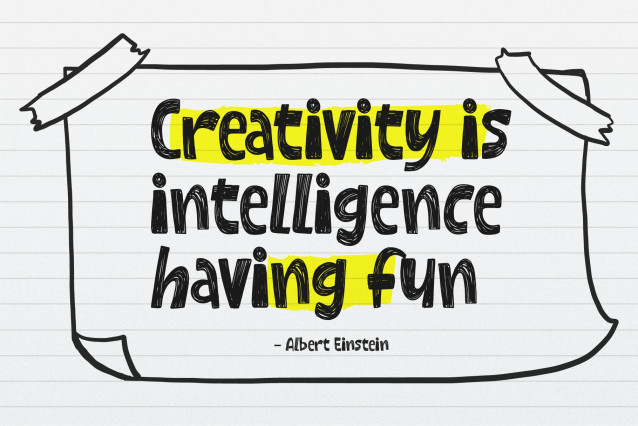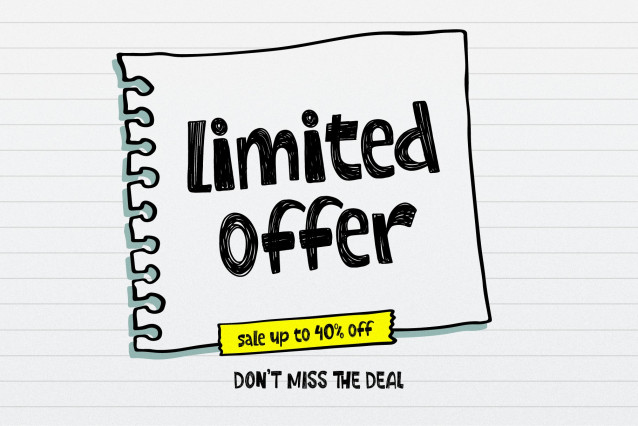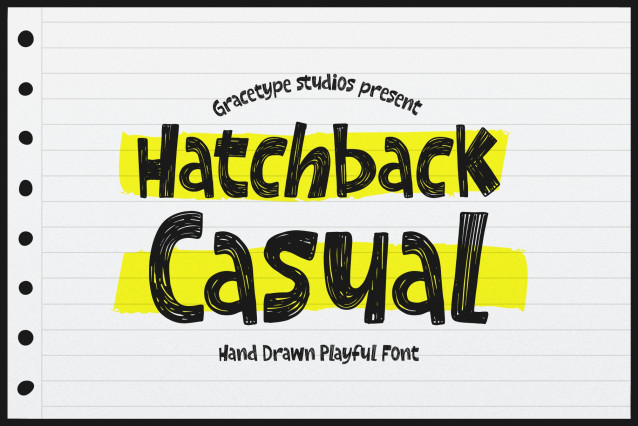
Hatchback Casual Font
Hatchback Casual Font | Hand Drawn Playful, from Gracetypestudio, suitable for any projects such as: logos, branding projects, homeware designs, product packaging, mugs, quotes, posters, shopping bags, t-shirts, book covers, name card, invitation cards, greeting cards, label, photography, watermark, special events, and all your other lovely projects that need a Slab Serif taste.